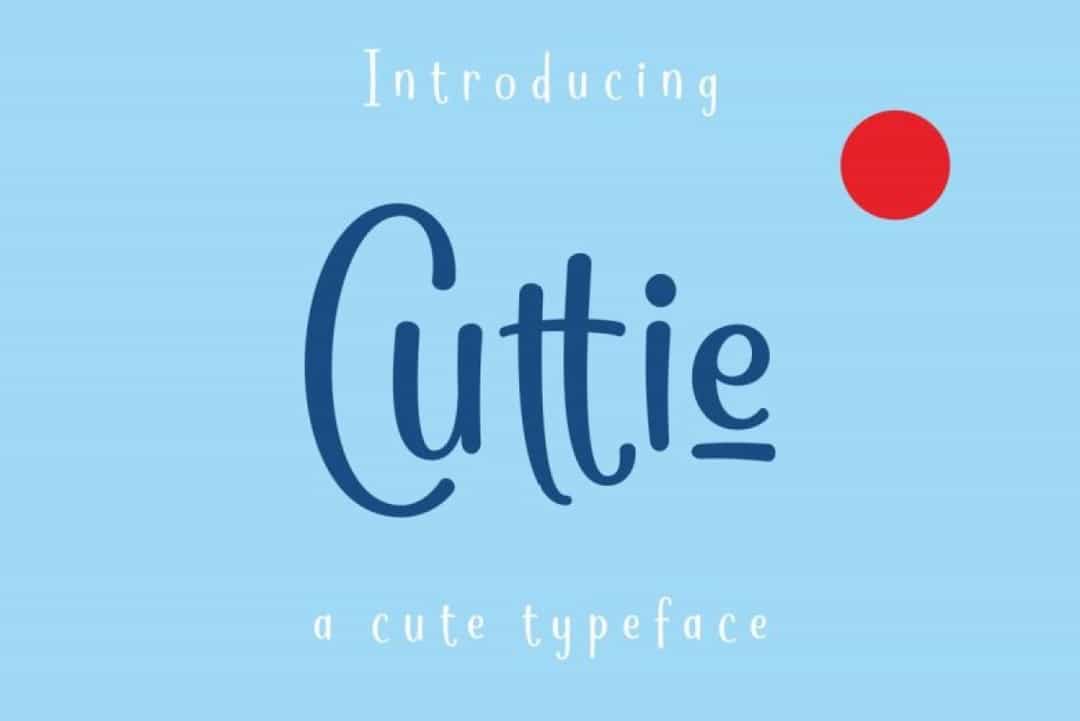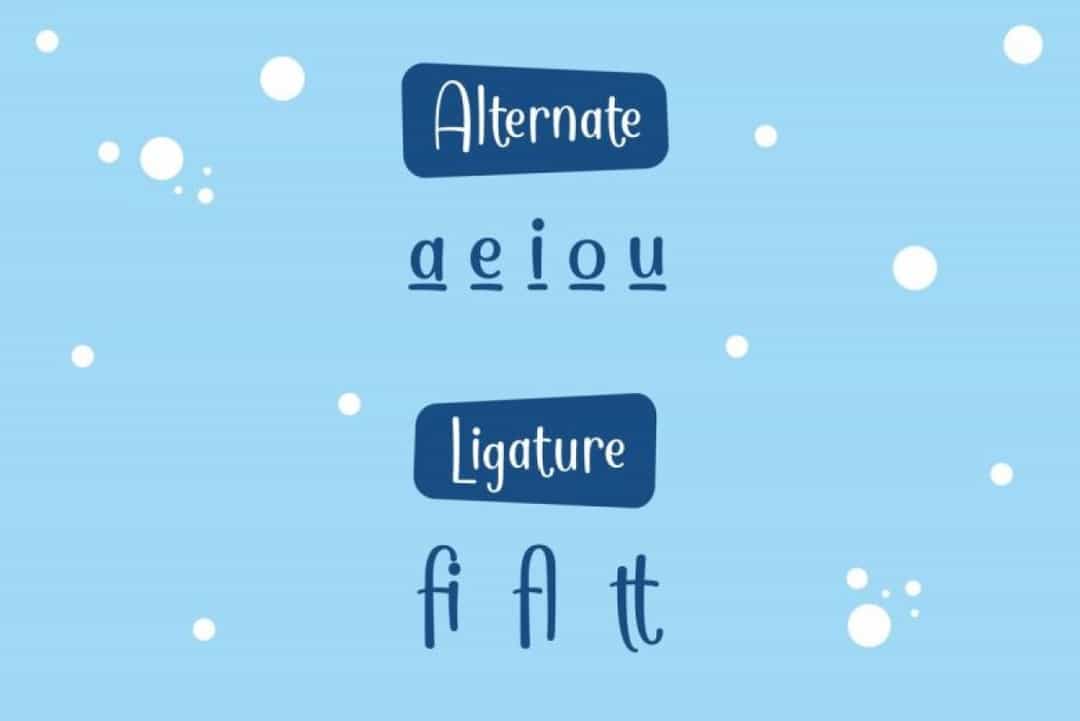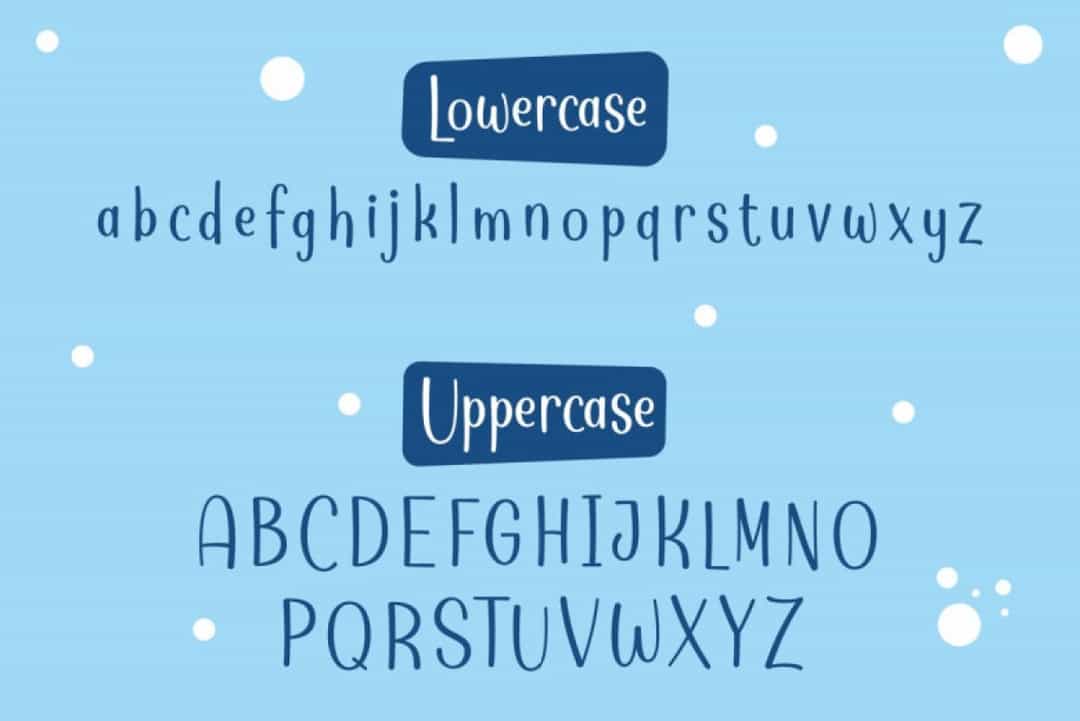
Cuttie is a casual font but at the same time it has a charming personality which allows it to be used for a lot of purposes – cards for greetings, quotes invitation cards, children’s books, etc.